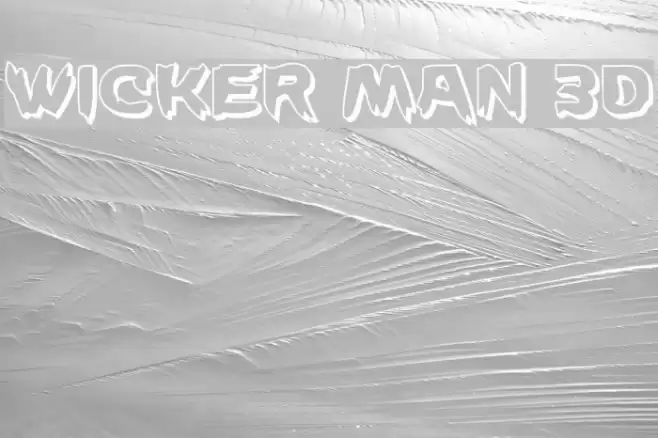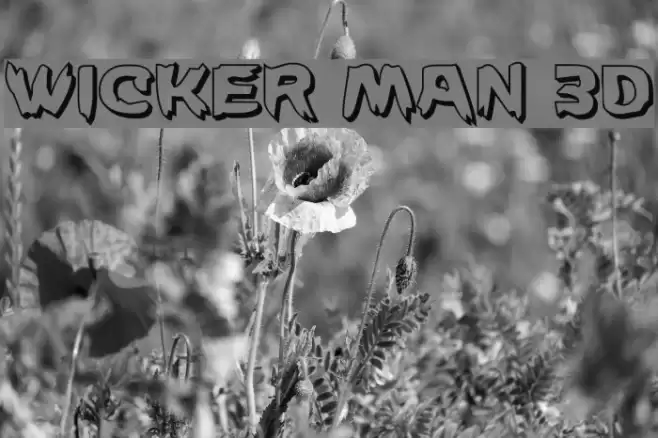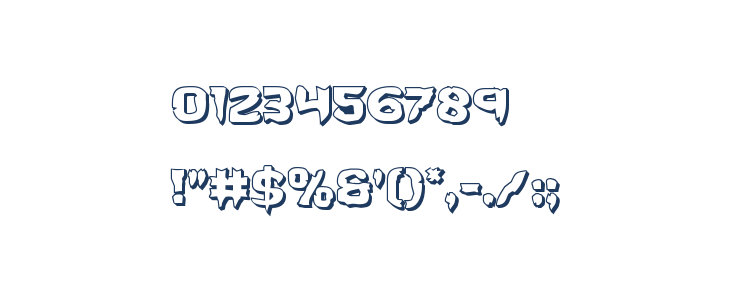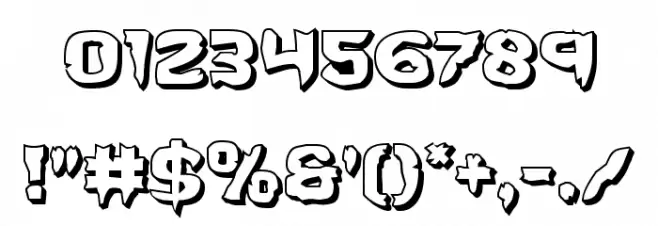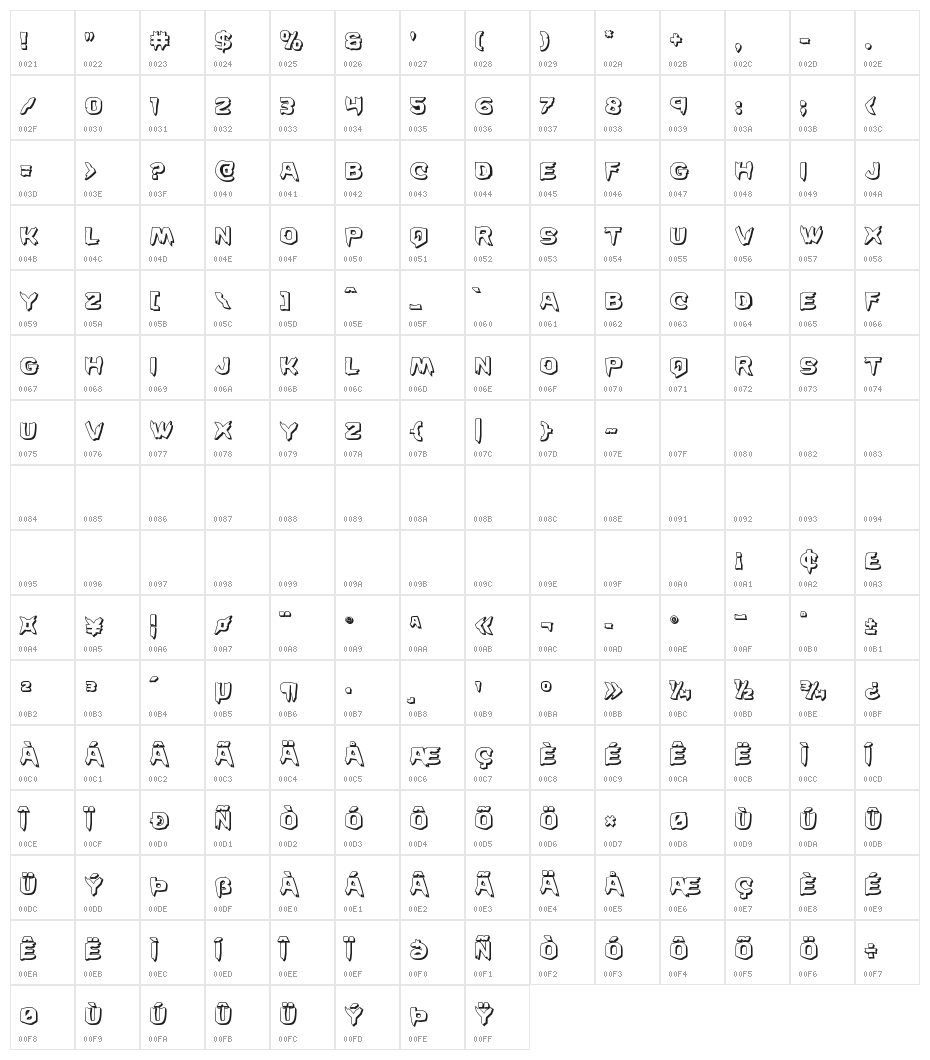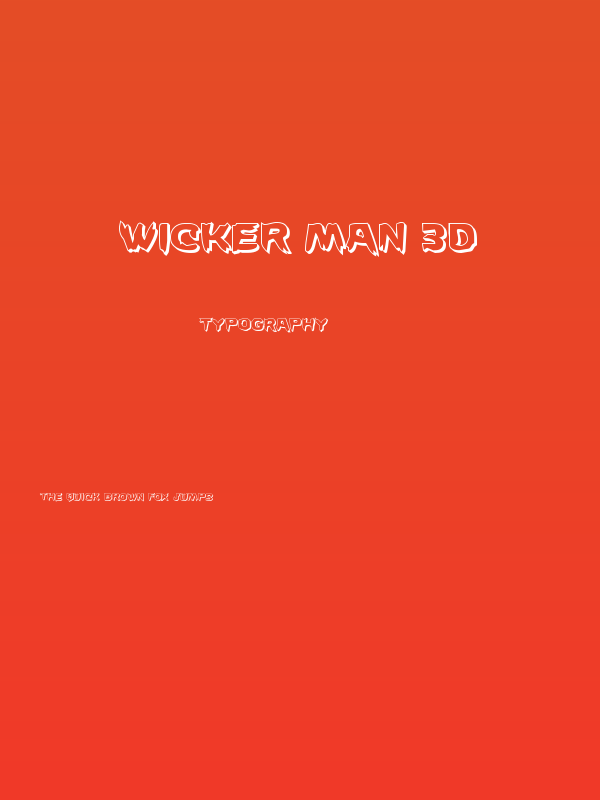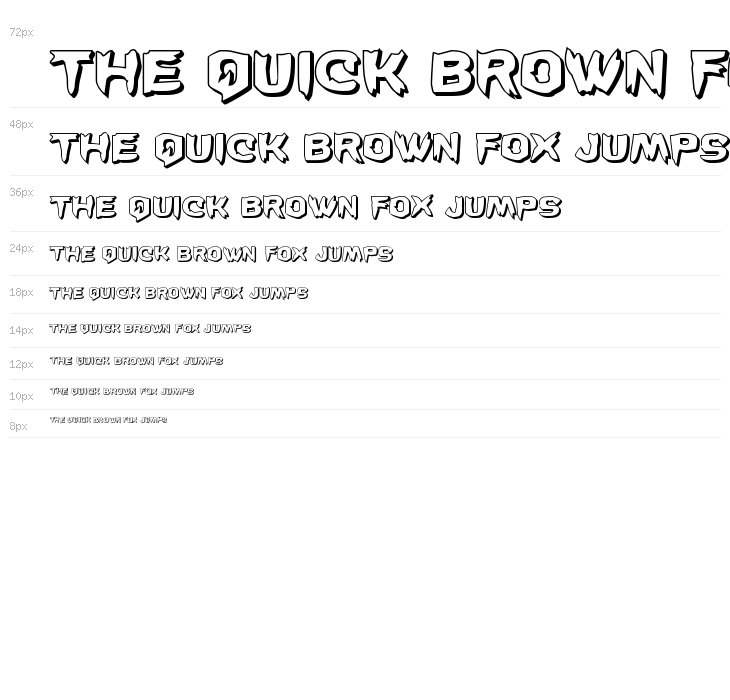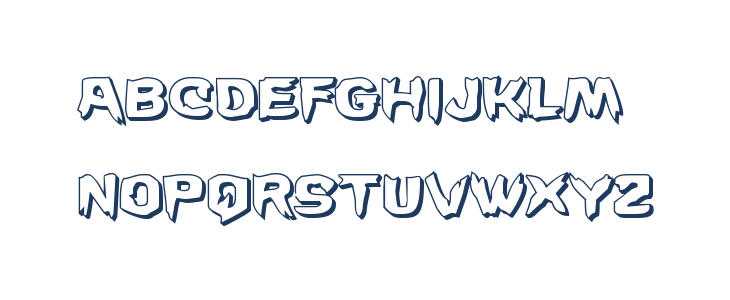
Wicker Man 3D Font
Wicker Man 3D Description
This font features a bold, three-dimensional appearance with jagged edges and a playful, dynamic style. The characters are outlined, giving them a shadowed effect that enhances their 3D look. The uppercase and lowercase letters maintain a consistent design, with sharp angles and a slightly aggressive flair. The numbers and special characters follow the same aesthetic, ensuring uniformity across all glyphs. This font is eye-catching and ideal for projects that require a strong visual impact.
A bold, 3D font with jagged edges and a playful, dynamic style from Uncategorized fonts.
- Proposed Projects: Ideal for video game titles, movie posters, Halloween-themed designs, and any project needing a bold, impactful font.